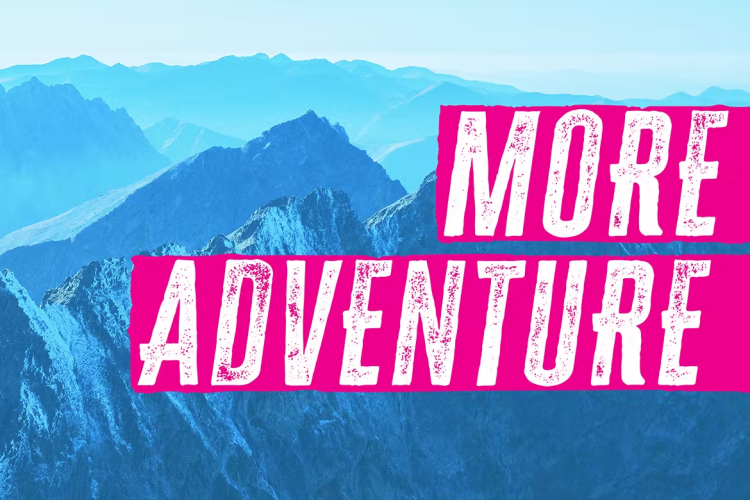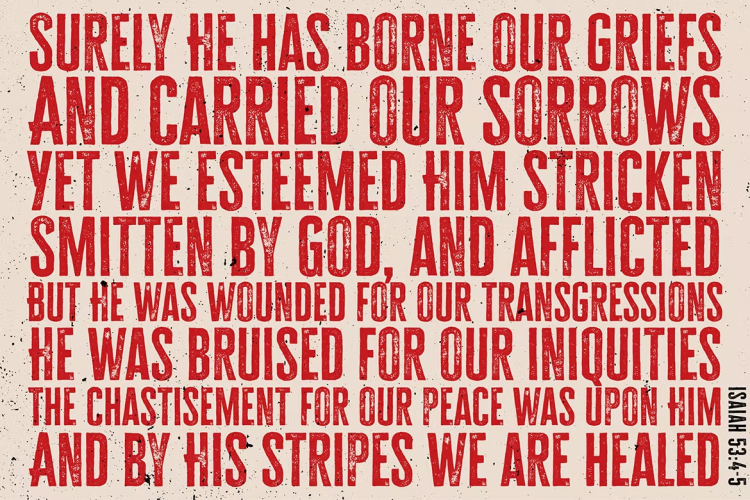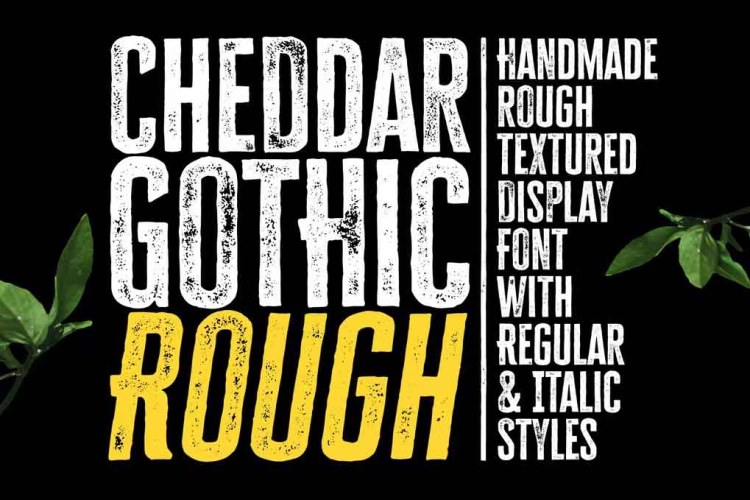
Cheddar Gothic Rough Font
Cheddar Gothic Rough is a hand-drawn, textured display font with regular and italic styles. An all-caps, sans serif typeface with condensed proportions that works great for a variety of display uses. The uppercase characters add distinction with extended crossbars and chiseled terminals, while the lowercase provides a more classic sans serif appearance.
Carefully drawn for quality and readability, but still rough enough to exhibit the handmade details. Cheddar Gothic Rough is great for display, branding, packaging, advertising, food, sports, titles, and more.
Cheddar Gothic Rough features:
This font has extensive Latin language support for Western, Central, and South Eastern European.
This font is the textured version of the Sans family within the larger Cheddar Gothic font family (which includes Sans, Serif, Slab, and Stencil styles).
Where Cheddar Gothic Rough Font works best
Cheddar Gothic Rough Font keeps its shape at 14 and 16 pixels, which is where interface text actually lives. Numbers and capitals stay distinguishable in tables.
Presentations are read at a distance; a clean sans with a strong bold is the safest hierarchy you can build in a hurry.
Simple letterforms survive angles, glare and movement, so Cheddar Gothic Rough Font suits door signs, menus boards and exhibition panels.
What kind of work does Cheddar Gothic Rough Font suit?
It sits in the Sans Serif Fonts group and reads as classic, condensed, display, handwritten. That makes it a candidate wherever those qualities help: headings, packaging, social graphics and brand work. Set it at the size you plan to use before deciding.